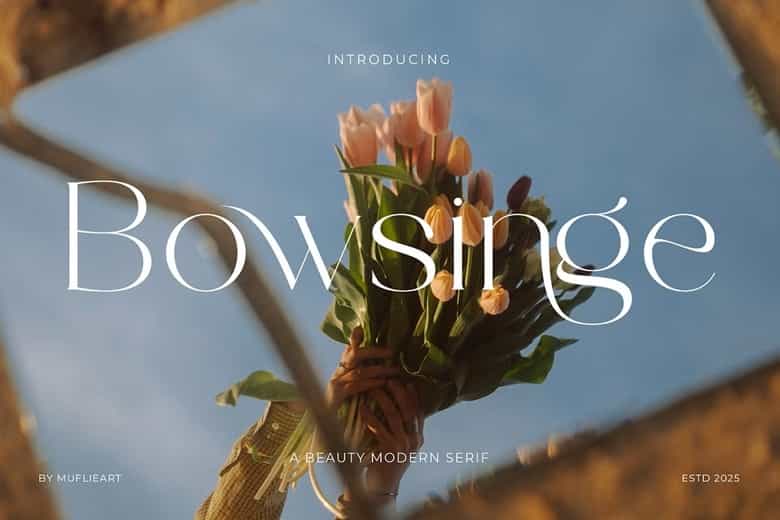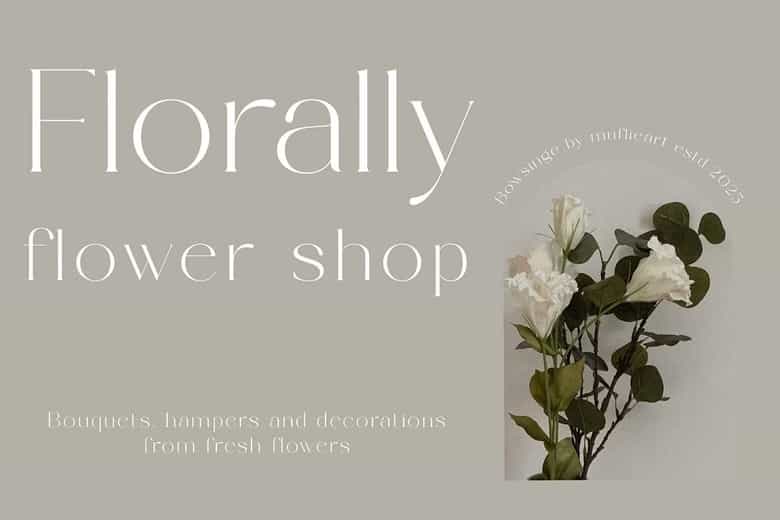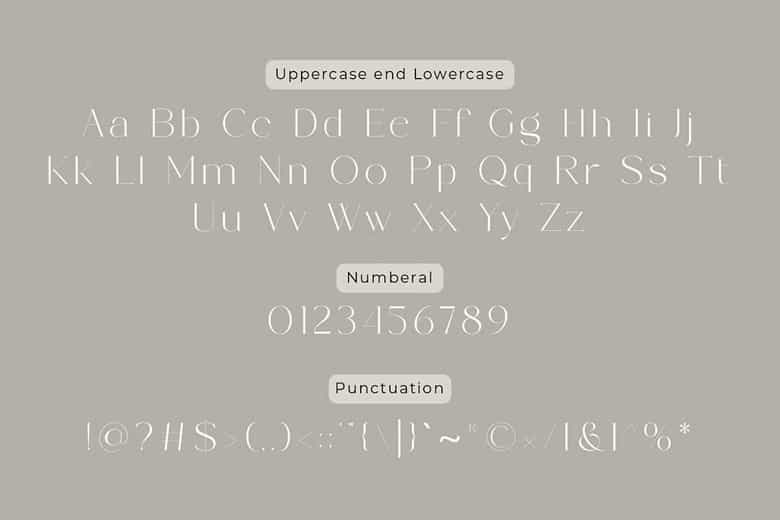
Welcome Bowsinge, a modern, elegant and beautiful Serif font. Bowsinge’s trendy and minimal design helps your project websites, logos, brand identities, social media postings, wedding invites or magazines look exclusive, classy and spotless. Bowsinge has its own classy capital letters A to Z and also gives you access to several special alternates and ligatures, so it remains a beautiful font that can suit many tasks and projects.